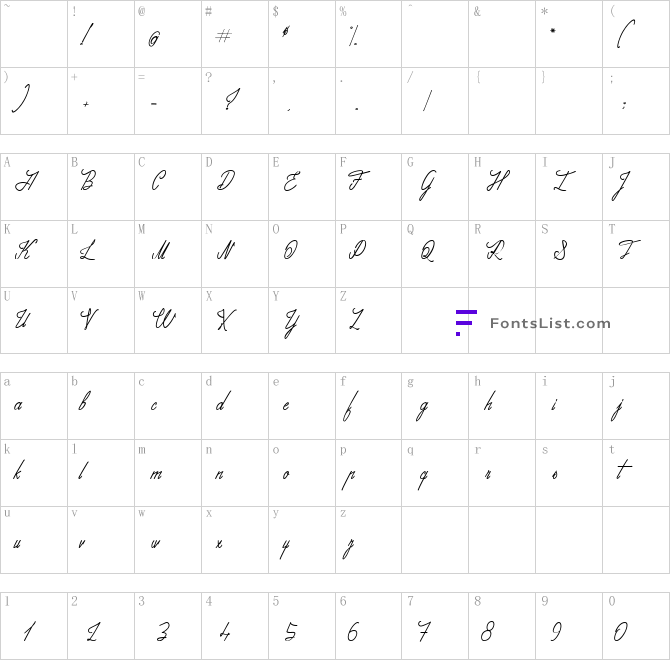
Adventures-on-the-Mountains.ttf is a very beautiful artistic font, Adventures-on-the-Mountains.ttf is widely used in the design and printing of various books and pictures,Adventures-on-the-Mountains.ttf has a strong visual impact,Adventures-on-the-Mountains.ttf is a commonly used font in newspapers, magazines and books, and is used in posters, e-commerce Poster design, store design, logo design, font design and other fields.Adventures-on-the-Mountains.